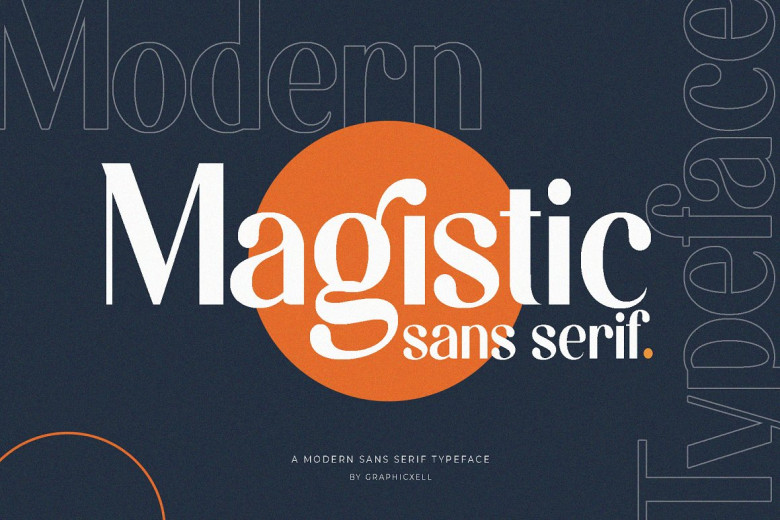
Magistic Font
Magistic Elegant Serif Font is inspired by iconic minimalist logo design, and can be used for designing brochures, videos, logos, advertising collaterals and invitations, layout design elegant crafting, stunning design projects and much more.
Magistic Elegant Sans Serif Font